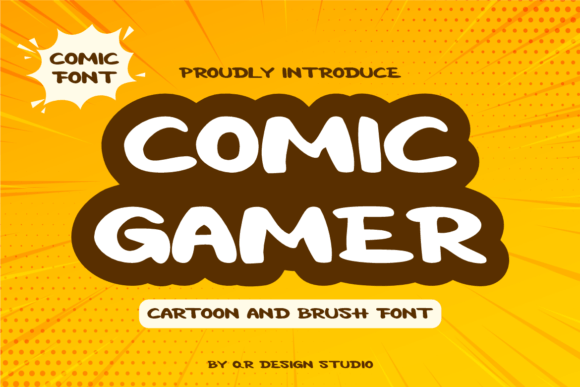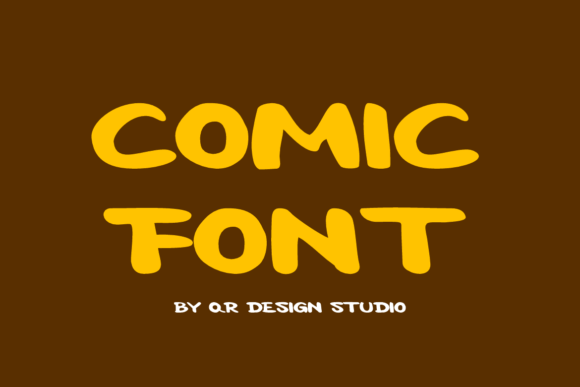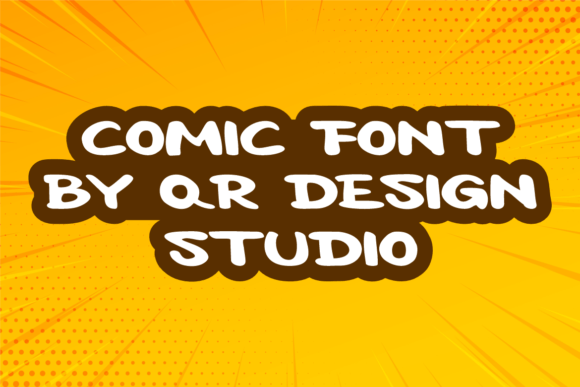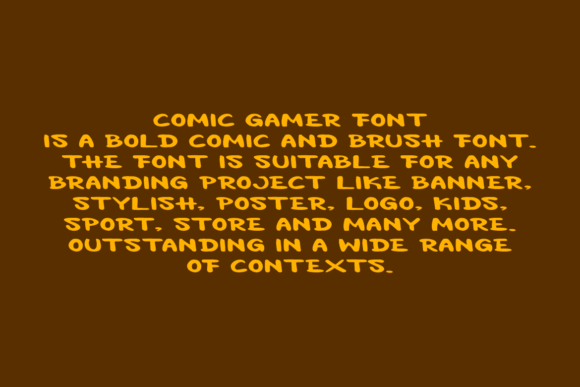
Comic Gamer Font
About the Comic Gamer Font
Unleash your creativity with Comic Gamer Font, a versatile font perfect for a wide range of applications. Comic Gamer is a unique and interesting display font.  A little bit quirky, this font looks incredibly adept on a wide variety of contexts!
Comic Gamer excels as a display font for headlines, posters, and branding projects targeting a younger demographic or those with a playful, energetic brand identity. Its quirky nature makes it ideal for video game-related materials, comic books, or casual apparel designs. However, its unique character makes it unsuitable for body text or UI elements where legibility and consistency are paramount.
Pairing Comic Gamer with a clean sans-serif like Open Sans for body text creates a strong visual contrast and maintains readability. For a more playful feel, consider pairing it with a rounded geometric sans-serif such as Bebas Neue. Conversely, a classic serif like Garamond could provide a sophisticated counterpoint, highlighting Comic Gamer’s quirky charm.
The font’s core personality is undeniably bold and playful, conveying a sense of fun and approachability. It is best suited for projects that need a strong visual impact and a lighthearted tone.
Comic Gamer Font Usage Examples
Comic Gamer Font Example